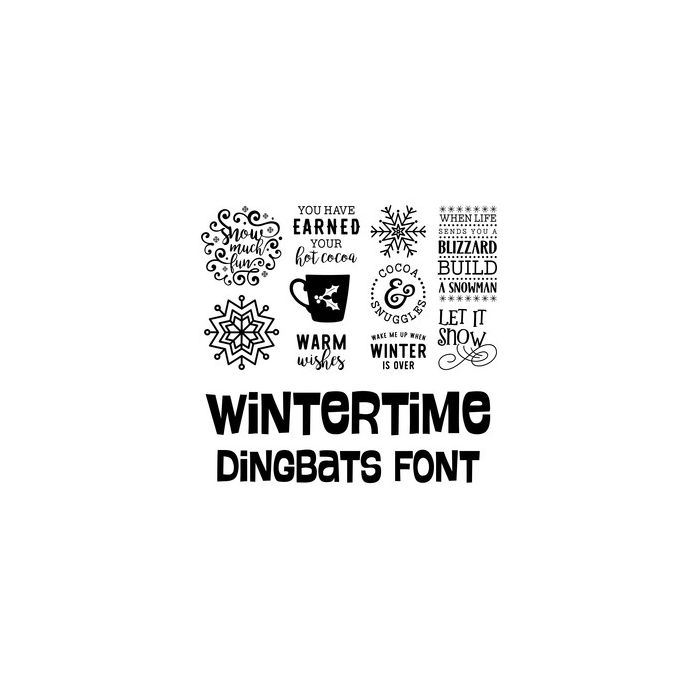
wintertime dingbats font
This cute dingbat font includes 26 Christmas icons that you can type + cut. Make an adorable Christmas project quickly and easily with the characters in this fun font. For ideas and inspiration visit www.loriwhitlock.com and www.facebook.com/lori.whitlock.studio. For Lori's video tutorials visit www.youtube.com/loriwhitlock. For a full tutorials list visit www.loriwhitlock.com/blog/tutorials.